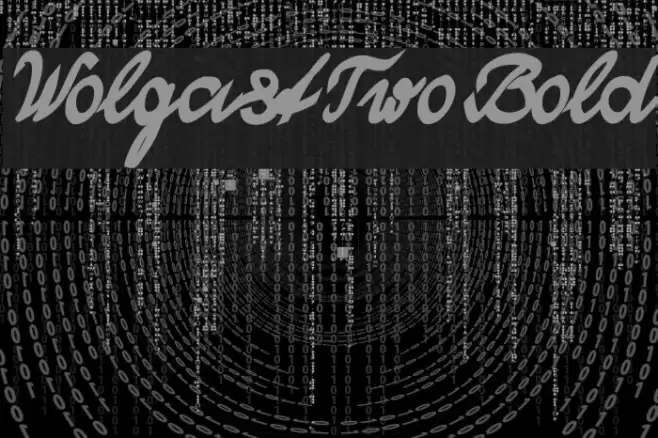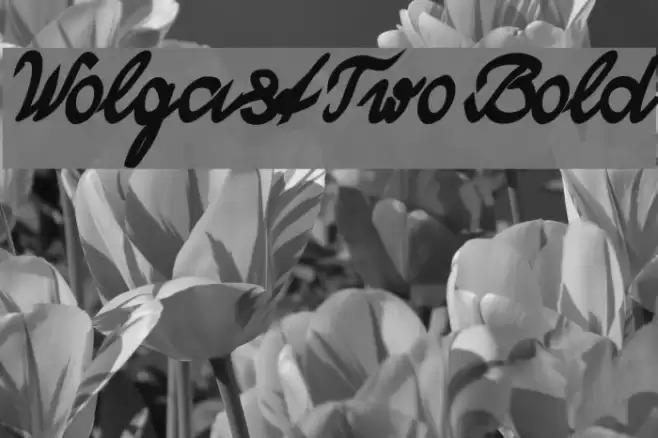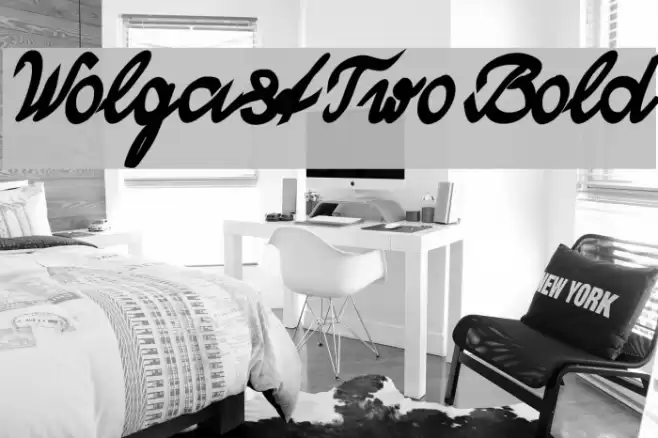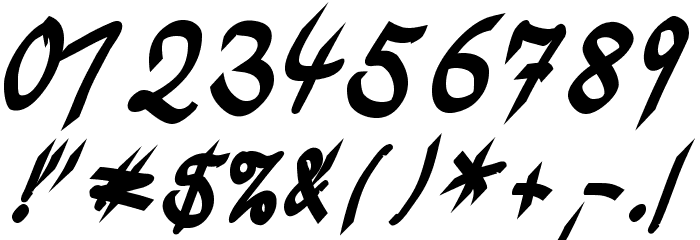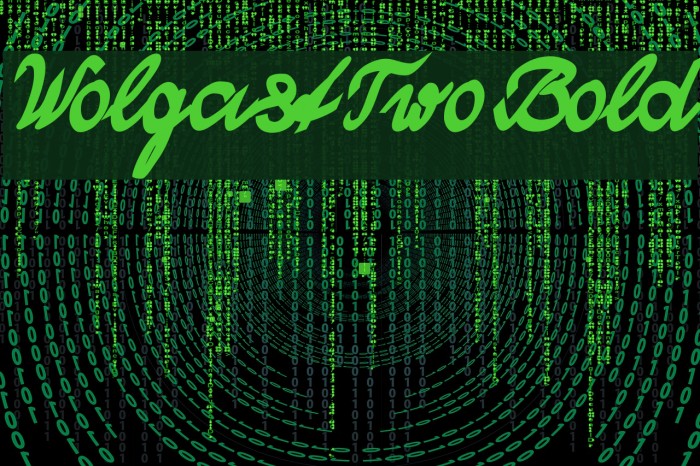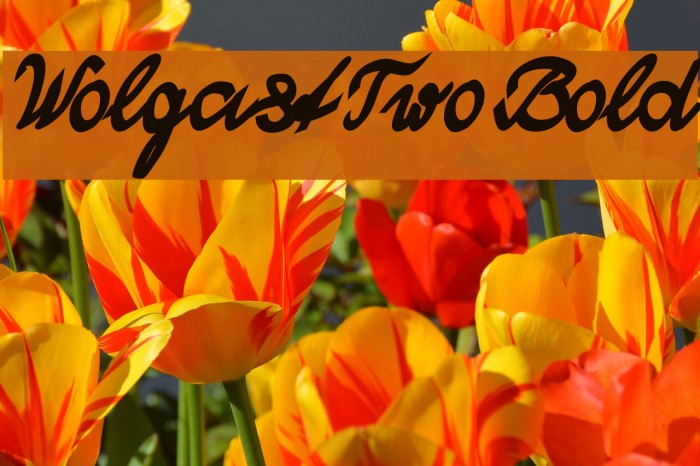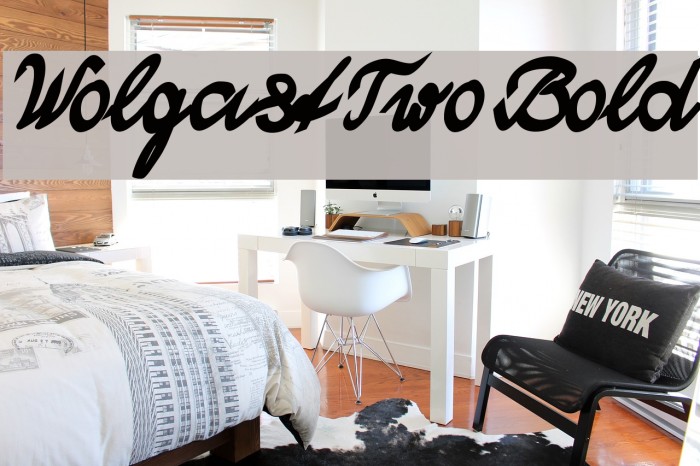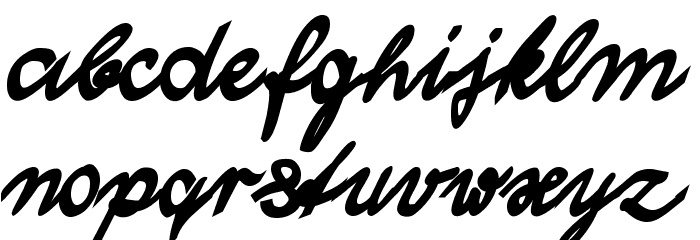
WolgastTwoBold Font
WolgastTwoBold Description
This font features a bold, cursive style with a strong emphasis on fluidity and movement. The characters are connected in a way that mimics natural handwriting, giving it an elegant and dynamic appearance. The strokes are thick and consistent, providing a sense of boldness and confidence. The uppercase letters are slightly more ornate, with flourishes that add a touch of sophistication. The lowercase letters maintain a smooth flow, enhancing readability while retaining the script's artistic flair. Numbers and special characters are designed to match the overall style, ensuring a cohesive look across all text elements.
A bold, cursive script with fluid, connected characters and a dynamic style from Uncategorized fonts.
- Character Spacing: Tight